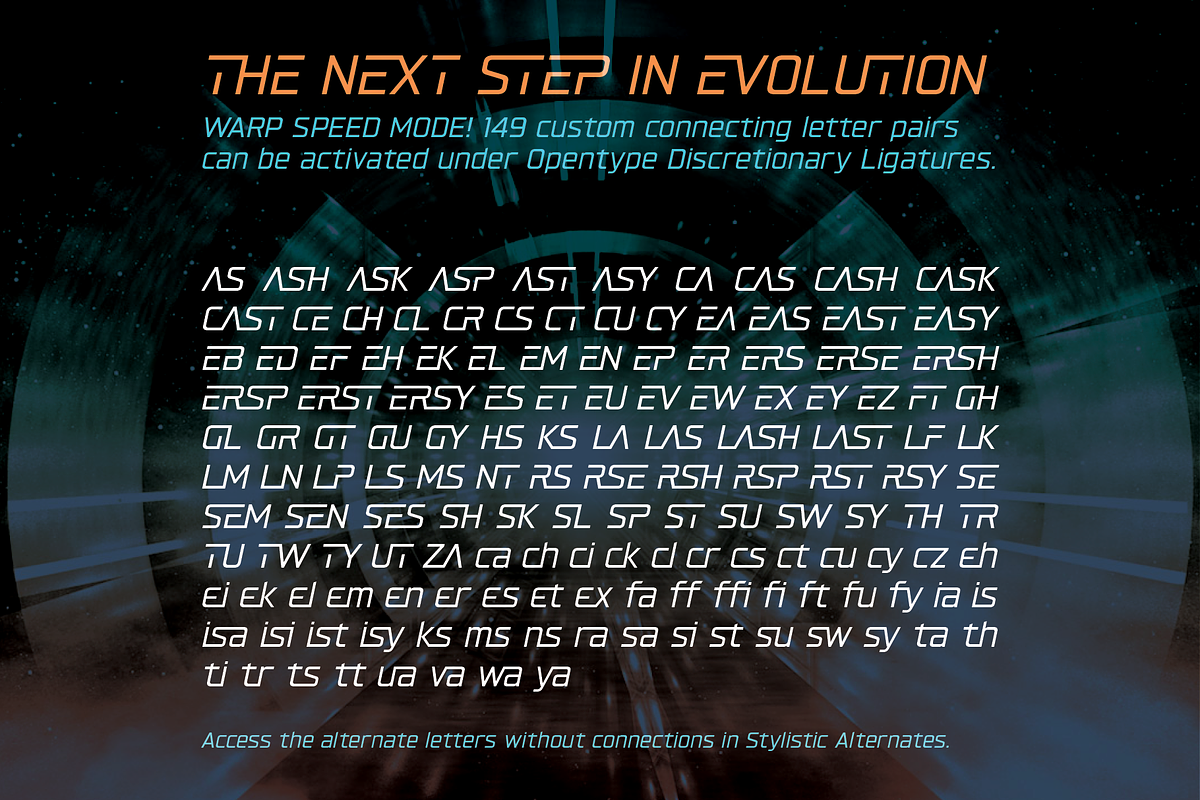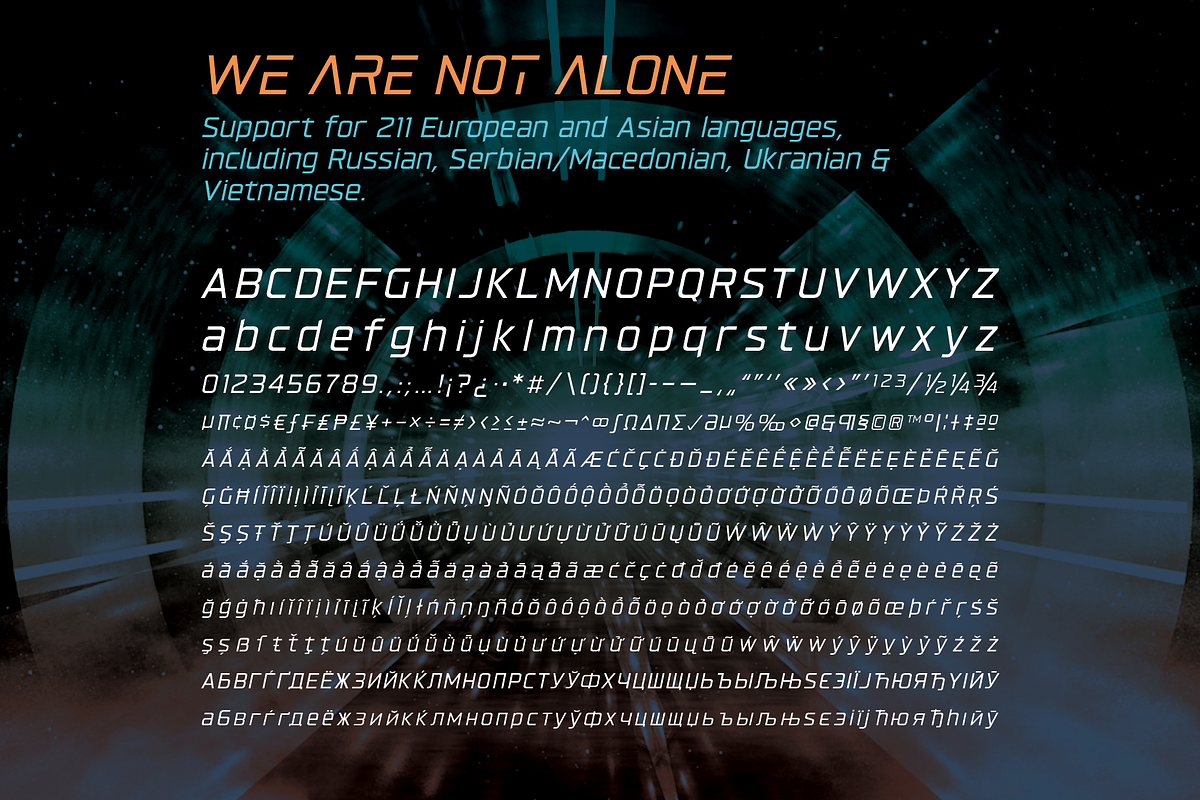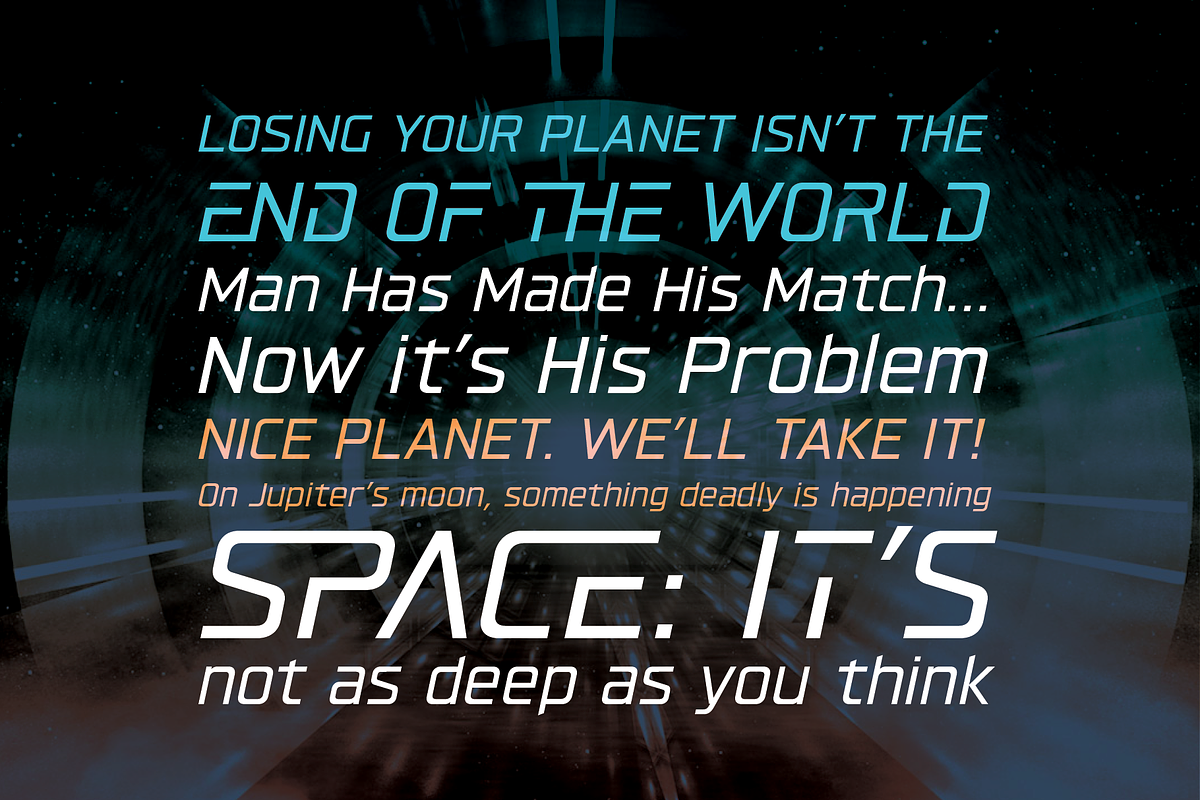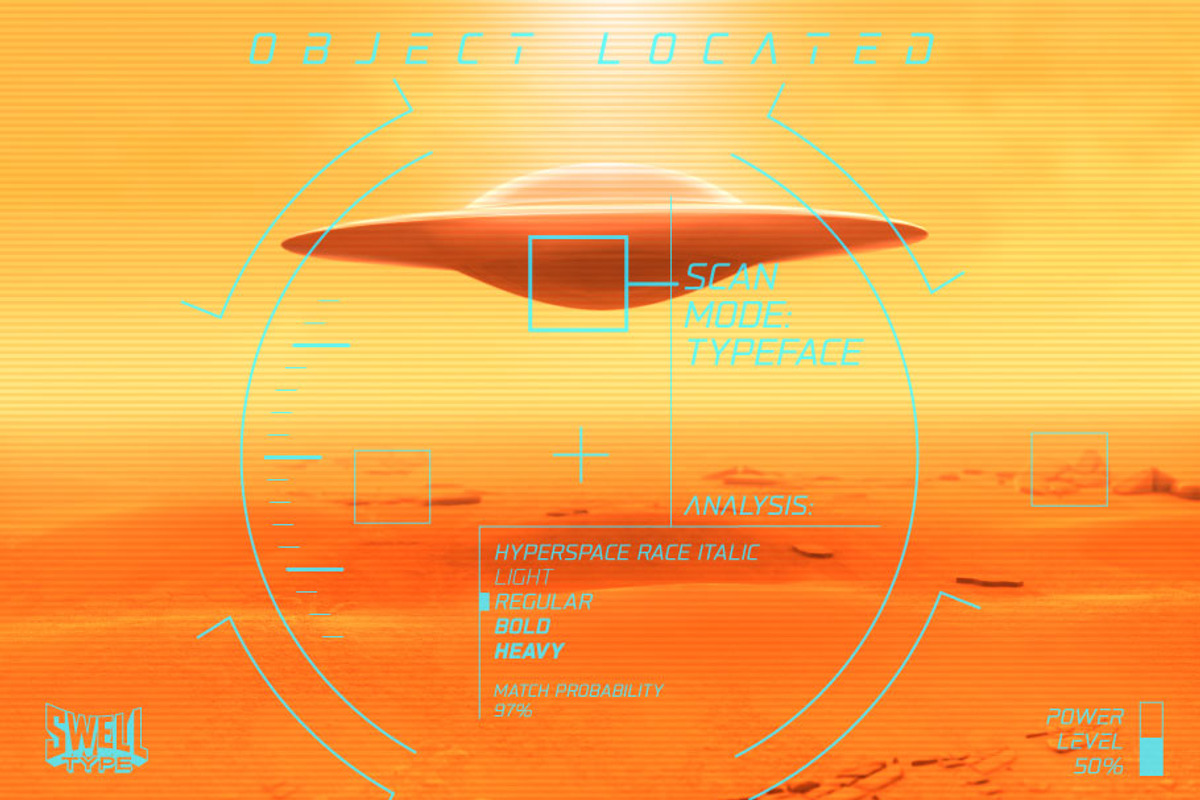
Hyperspace Race Italic sci-fi font
Swell Type has reached into the future and returned with the ultimate hyper-awesome sci-fi font: HYPERSPACE RACE.
Boldly going where no sci-fi font has gone before…
WARP SPEED mode: an incredible 149 individually crafted connecting letter pairs
Stylistic Alternates: non-connecting alternate "cut" letter shapes
Support for over 200 European & Asian languages, including Russian, Serbian/Macedonian, Ukranian & Vietnamese
The future of fonts has arrived!